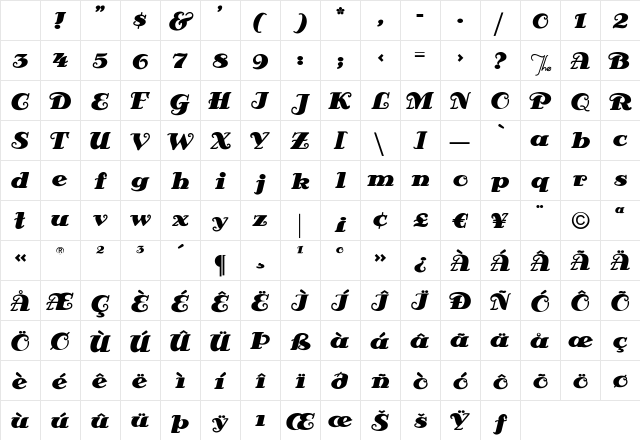
AntsyPants Regular
AntsyPants Family
Design Context for AntsyPants
AntsyPants is a composed and adaptable typeface that performs quietly and consistently across a wide range of design contexts.
Pro Tip: Use AntsyPants in both headline and body roles to test its range before committing to a single application.